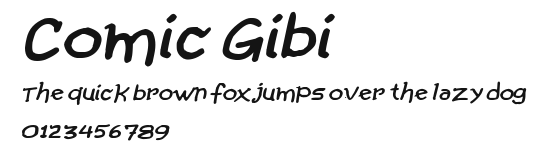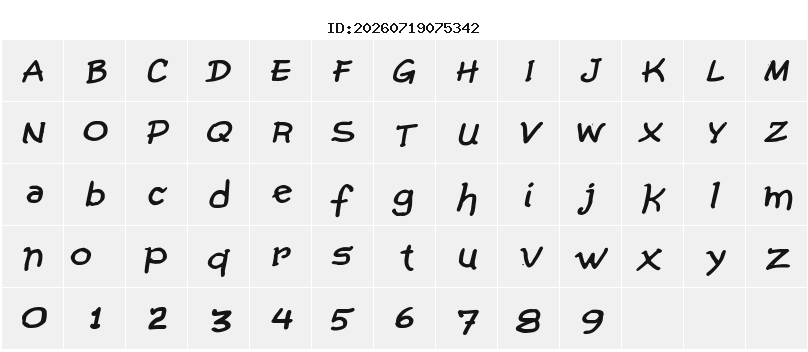
Comic Gibi Preview
• Font Name: Comic Gibi
• Font Style: Gras Italique
• Font ID: Comic Gibi Bold Italic:Version 1.00
• Full Font Name: Comic Gibi Bold Italic
• Version: Version 1.00 June 19, 2013, initial release
• PostScript Name: ComicGibi-BoldItalic
• Character Count: 235
• Designer: Galdino Otten
• Manufacturer: Galdino Otten
About Comic Gibi.ttf
Comic Gibi.ttf is a modern, elegant sans-serif font designed for ultimate readability and visual harmony. Perfect for branding, headlines, web design, and print materials.